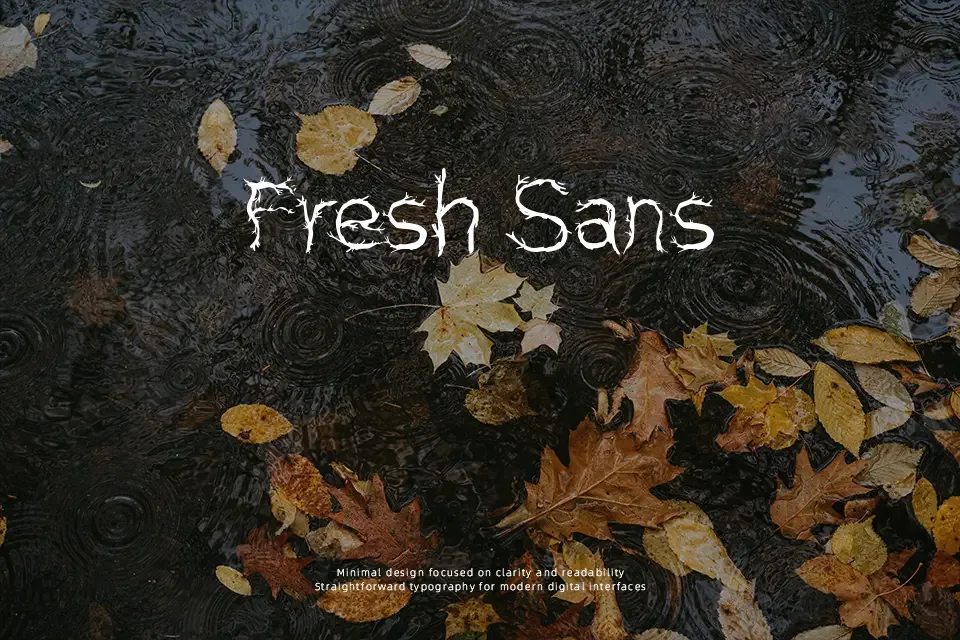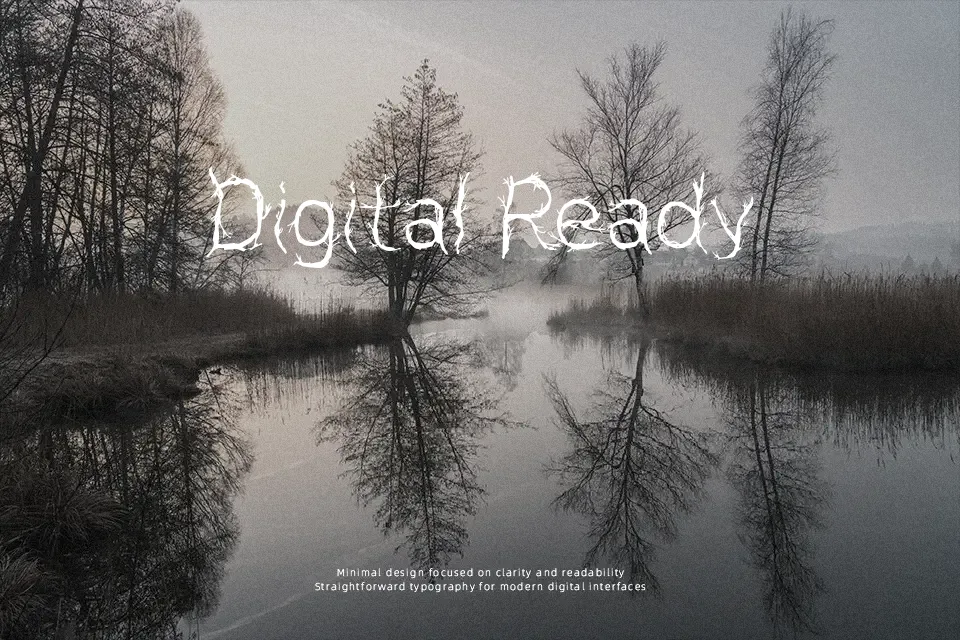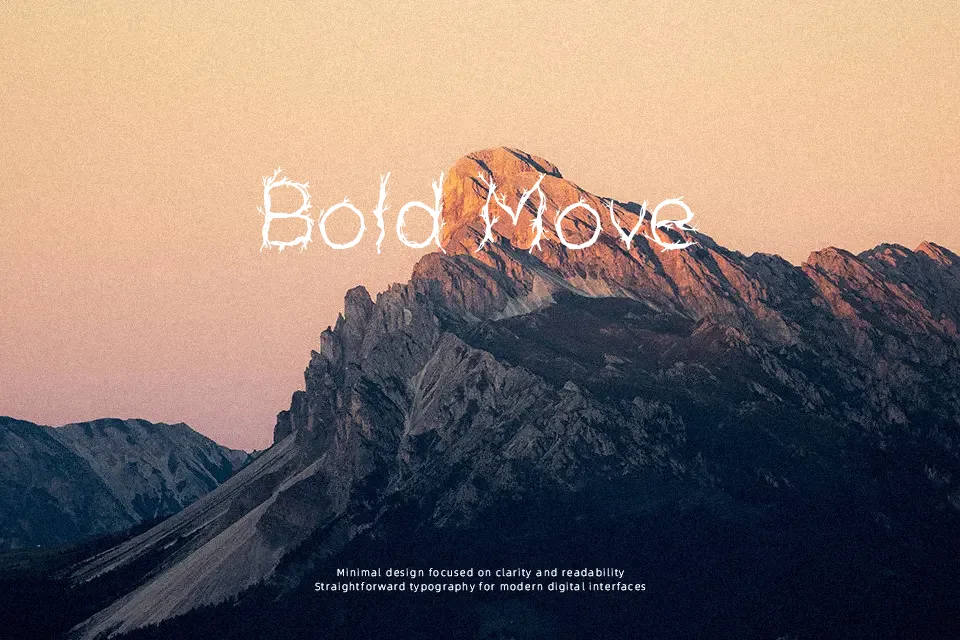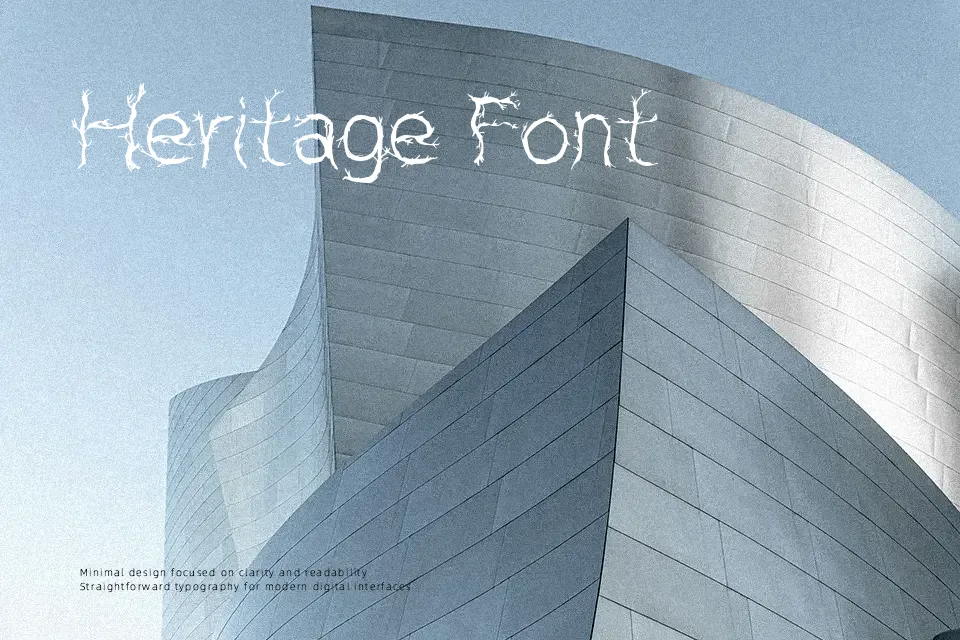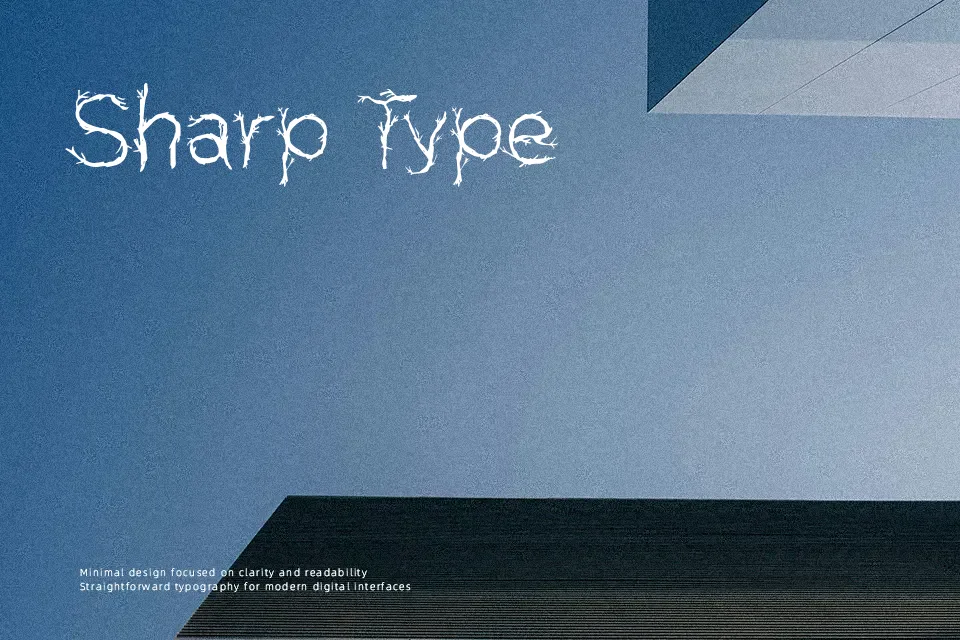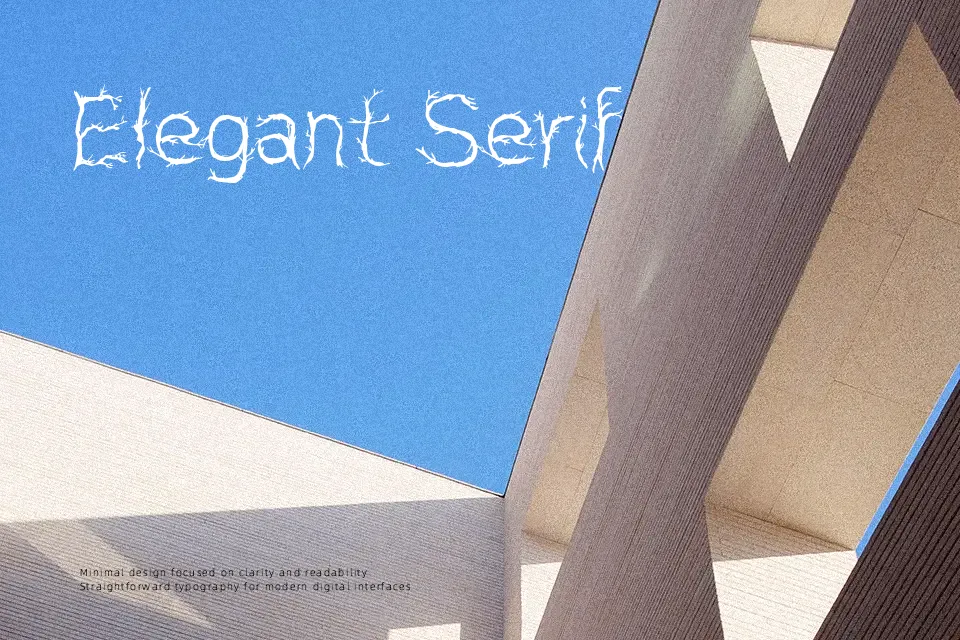
CF Pretty Trees Font
CF Pretty Trees Font showcases a highly decorative structure built from organic branch silhouettes and interwoven twig forms that define each character. The strokes display natural texture with uneven contours, varying thicknesses, and delicate bark-like offshoots branching outward from the stems. Spacing between glyphs remains relatively open, which helps preserve the distinct silhouette of individual letters in large display arrangements. However, the intricate details and jagged contours quickly merge into indistinct shapes at smaller scales, making the typeface unsuitable for continuous body text or compact interface labels. When deployed for large environmental posters, rustic packaging, or seasonal headlines, the letterforms deliver memorable visual character without sacrificing essential title readability.
Best For: nature-themed poster titles, rustic packaging labels, seasonal festival headlines, environmental campaign banners
Not Ideal For: continuous body text, dense editorial paragraphs, small interface labels, multi-page documents
Perfect for headline, invitation, and logo, with a artistic and decorative style.